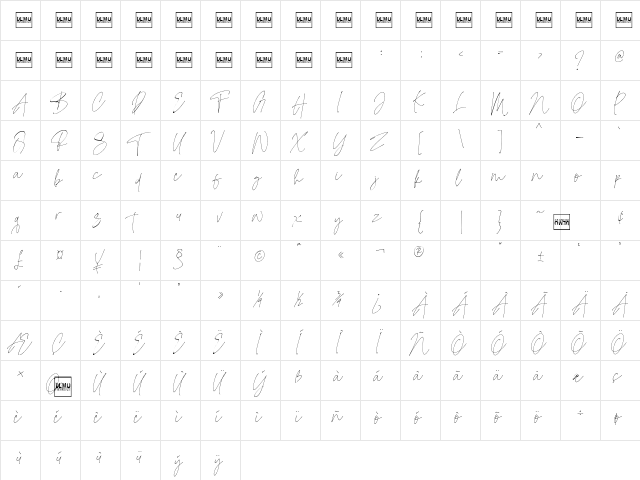
Mode Style Script Regular
| Foundry | Motokiwo |
| Designer | Anton Cahyono |
Design Context for Mode Style Script Typeface
Mode Style Script flows with the natural rhythm of handwritten lettering, making it ideal for designs that call for warmth and personal expression.